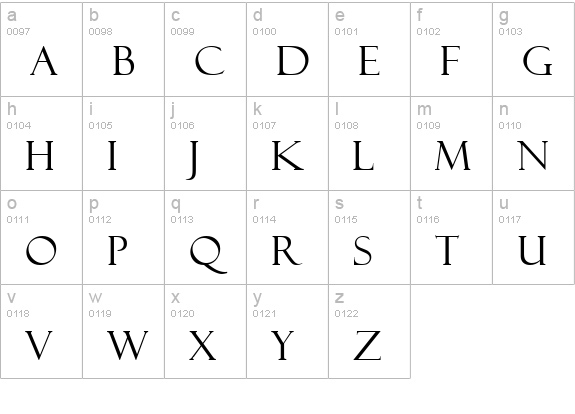
Felix Titling is a sophisticated and elegant font that exudes a timeless charm and classic appeal. With its sleek lines and refined strokes, this font is perfect for conveying a sense of sophistication and luxury in any design project. The bold and distinctive letterforms make a strong statement, while the delicate serifs add a touch of grace and refinement. What sets Felix Titling apart is not just its stunning design, but also the fact that it is available for free download at FontsMarket.com. This means that you can easily access this premium font without any cost, making it a valuable addition to your font collection. Whether you are creating invitations, logos, or branding materials, Felix Titling is sure to elevate your design with its timeless beauty and classic appeal. Download this exquisite font today and add a touch of elegance to your projects.